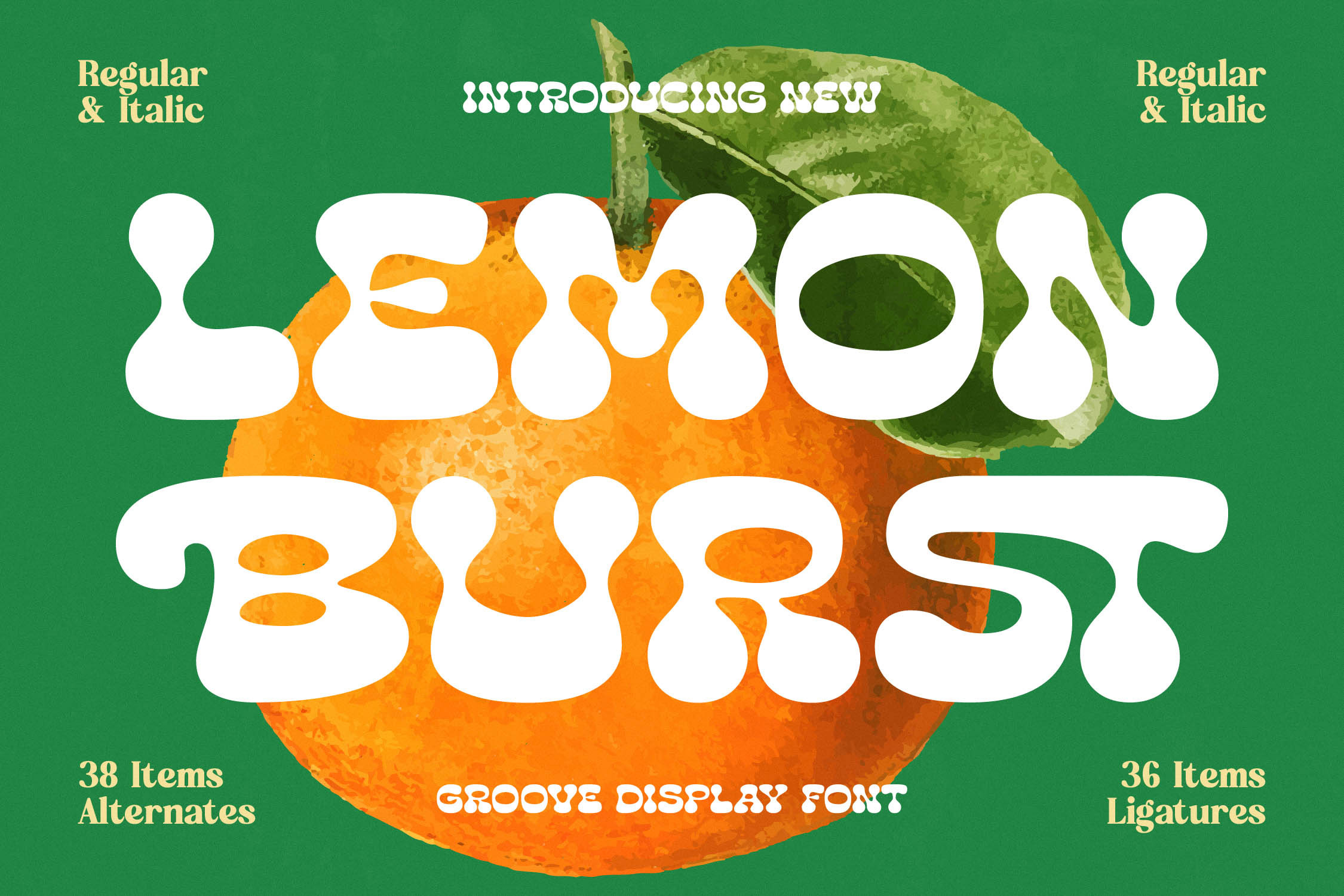
Lemon Burst Retro Groovy Font
Experience the vibrant energy of Lemon Burst, a typeface designed to infuse your creative projects with an unmistakable sense of joy and retro flair. This font captures the essence of sunshine and citrus, making it the perfect choice for designers looking to add a playful yet sophisticated touch to their work.
Drawing inspiration from the psychedelic posters and groovy aesthetics of the 1970s, this font evokes a sense of nostalgia for a time of bold experimentation and organic forms. Its fluid lines and melting curves mimic the natural movement of liquid, creating a visual rhythm that is both dynamic and captivating.
With its thick, rounded strokes and expressive silhouettes, this modern serif display delivers a powerful branding impact that is hard to ignore. It functions as a piece of luxury typography that maintains a fun edge, while the high-contrast serif elements ensure it remains a versatile editorial font that bridges the gap between vintage charm and contemporary cool.
As the modern serif trend continues to dominate the creative landscape, this typeface stands out by offering character-driven typography that feels authentic and fresh. It is perfectly aligned with current editorial display fonts favored by top-tier design agencies seeking to break away from traditional geometric constraints.
This font is an exceptional choice for logo design and high-end branding projects where a unique identity is paramount. Its expressive nature makes it ideal for editorial layouts, vibrant packaging, whimsical wedding invitations, and bold fashion lookbooks that require a signature look.
To ensure maximum creative flexibility, the package includes a wide array of ligatures, alternates, and swashes that allow you to customize every word. It also features full support for multilingual layouts and a comprehensive set of international characters, making it a robust tool for global design projects.